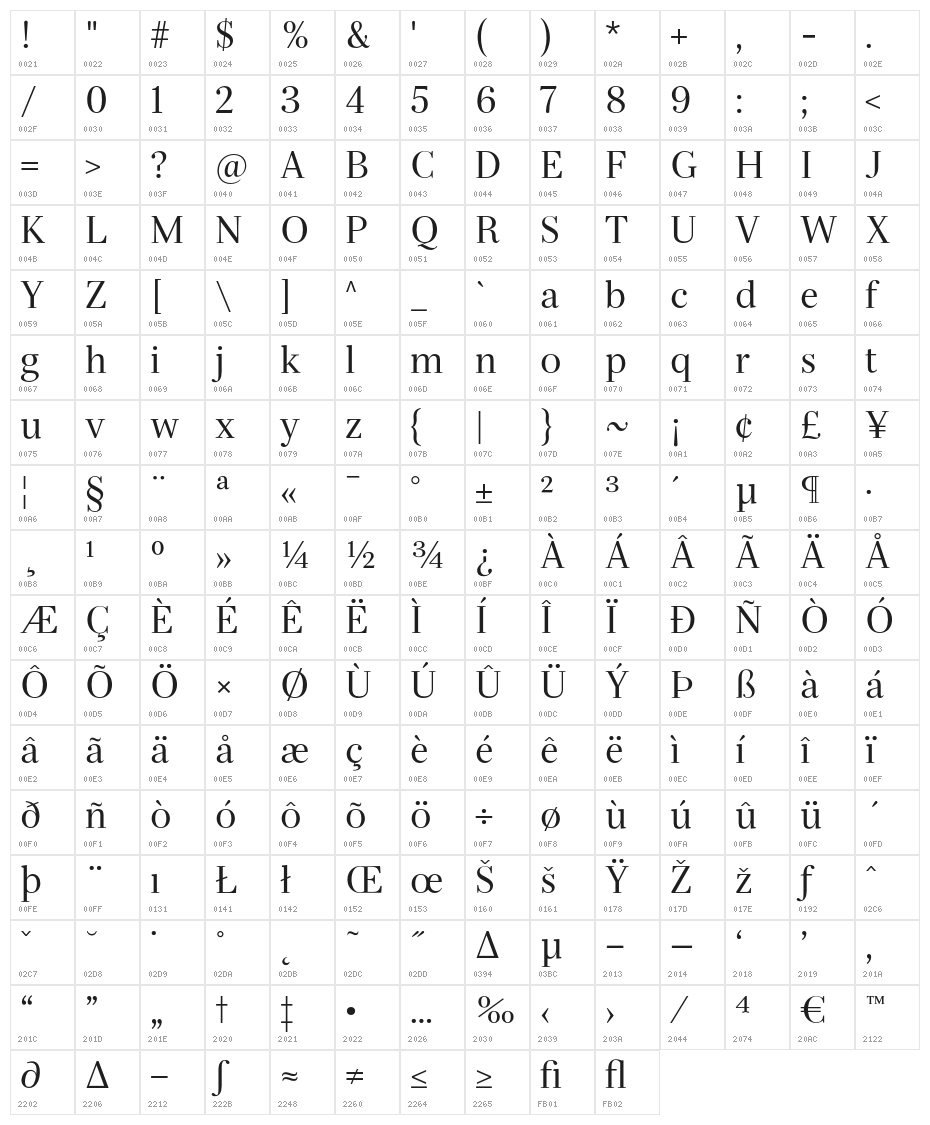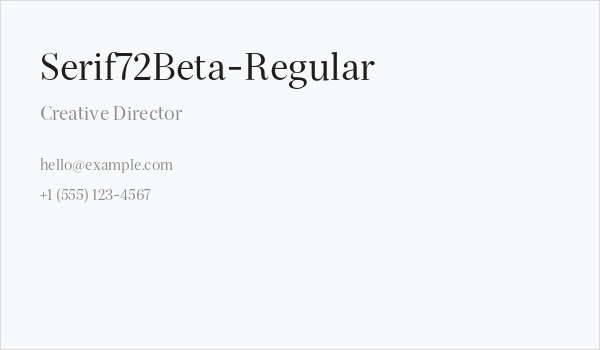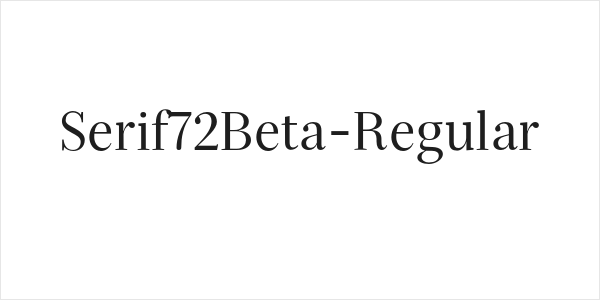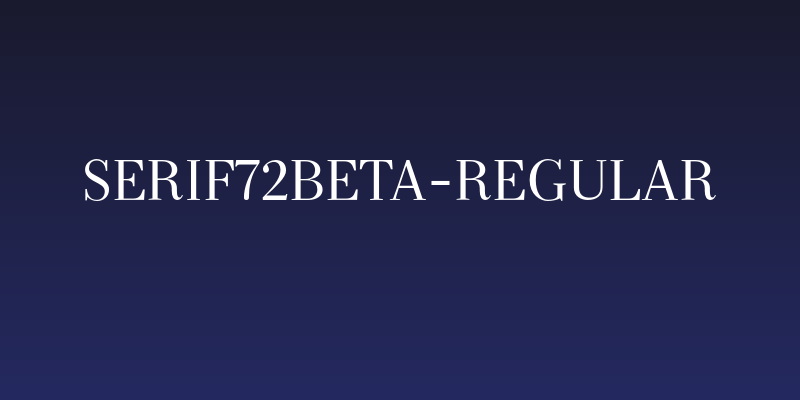
Serif72Beta-Regular Font
Serif72Beta-Regular Description
This font is a classic serif typeface characterized by its elegant and traditional design. The letters feature distinct serifs that add a touch of sophistication and readability, making it suitable for both print and digital media. The uppercase letters are bold and commanding, while the lowercase letters maintain a balanced and harmonious appearance. The numerals are clear and well-proportioned, ensuring legibility. Special characters are thoughtfully designed to complement the overall style, making this font versatile for various applications.
| Proposed Projects | Ideal for editorial design, book covers, formal invitations, and branding projects that require a touch of elegance. |